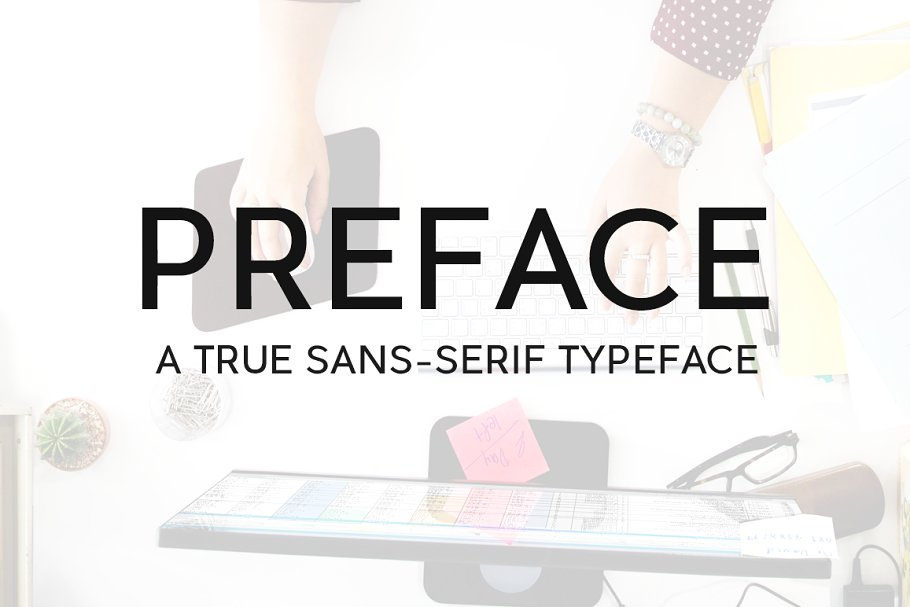
Preface Sans Font
Preface Sans Font is perfect for introductory publishing services, preliminary business communications, opening statement organizations, foundational educational platforms, preparatory consulting firms, and initial presentation companies. Its introductory character makes it ideal for preface writing services, introduction design agencies, opening ceremony planners, preliminary research institutions, foundational training programs, and any project requiring introductory excellence with preparatory sophistication and foundational communication appeal.
This font is exciting because it captures the essential role of introductions and preliminary communications while delivering exceptional functionality for organizations specializing in first impressions, foundational knowledge, and the crucial art of beginning meaningful conversations and professional relationships. The thoughtfully crafted letterforms embody the clarity and welcoming nature that make great introductions memorable and effective.
The Preface Sans Font family typically includes Light, Regular, Medium, and Bold weights with introductory alternates, preliminary ligatures, and foundational elements that enhance its opening personality. This comprehensive collection enables introductory professionals to create welcoming brand systems that maintain preparatory credibility while offering flexibility for various foundational applications requiring both introductory authority and contemporary preliminary market positioning.
Whether you're developing identity systems for introductory service providers, creating materials for preliminary consulting organizations, or designing promotional content for foundational education companies, Preface Sans Font Free Download delivers the introductory sophistication and preparatory appeal that connects with audiences seeking strong beginnings and foundational excellence. Its welcoming presence ensures memorable brand recognition across digital platforms and print materials, making it perfect for websites, mobile applications, and introductory campaigns that celebrate strong beginnings, foundational knowledge, and the transformative power of excellent first impressions with contemporary preparatory standards and authentic introductory excellence.